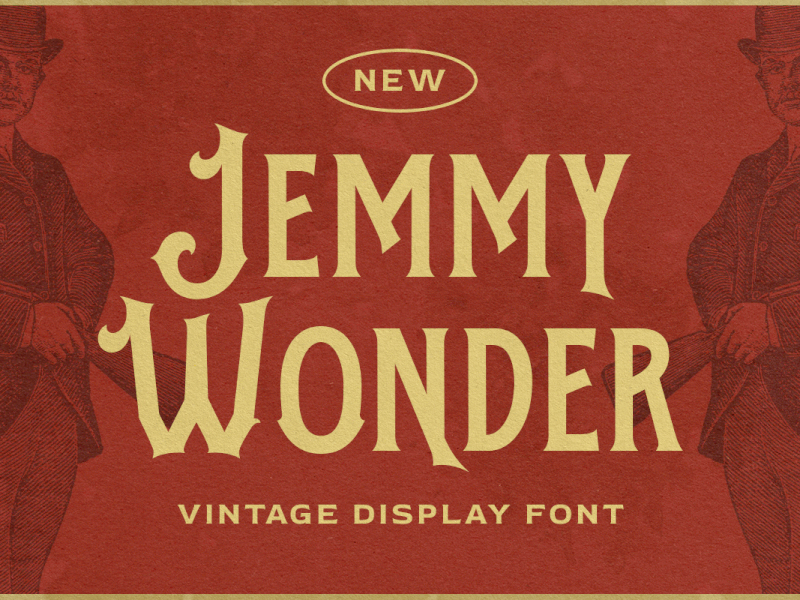
Jemmy Wonder - Vintage Display Font
Jemmy Wonder is a display typeface with a touch of vintage look and feel. This type of font perfectly made to be applied especially in logo, headline, signage and the other various formal forms such as invitations, labels, logos, magazines, books, greeting / wedding cards, packaging, fashion, make up, stationery, novels, labels or any type of advertising purpose.
uppercase & lowercase
numbers and punctuation
multilingual
alternates / swashes and ligatures